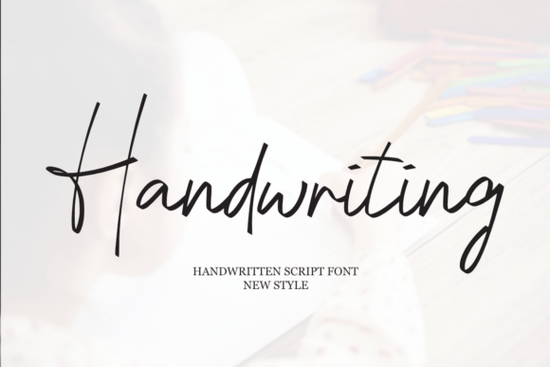
If you are looking for a typeface that feels personal and warm, the Handwriting Font is a strong candidate. This script typeface mimics natural pen strokes, making it ideal for projects that need a human touch. Whether you are designing wedding invitations, creating logos for small businesses, or making print-on-demand products, this font adds a joyful and romantic feel without looking too formal. It strikes a balance between fancy elegance and casual readability, which is often hard to find in standard script libraries.
What makes this script style stand out?
The core appeal of this typeface lies in its gentle curves and consistent flow. Unlike rigid serif or sans-serif options, cursive fonts connect letters in a way that guides the eye smoothly across the page. This specific design avoids excessive flourishes that can reduce legibility, ensuring your message remains clear even at smaller sizes. It works well for branding where you want to convey approachability. For example, a boutique owner might use it on packaging to suggest care and attention to detail. The romantic touch mentioned in the description comes from the soft terminals and varying stroke widths, which resemble actual ink on paper.
Designers often worry that script fonts are too difficult to read. However, this option maintains enough structure to be functional for headings and short paragraphs. It is not intended for long body text, but for display purposes, it performs reliably. When you pair it with a clean sans-serif for secondary information, the contrast helps important details pop. This versatility allows you to use it across different mediums, from digital social media graphics to physical merchandise like tote bags or mugs.
Where does this font work best?
Knowing where to apply this typeface saves time during the design process. It is particularly effective for wedding things, such as save-the-dates, menu cards, and signage. The romantic vibe aligns perfectly with floral themes and soft color palettes. Beyond events, it fits well in fashion and lookbook designs where elegance is key. Marketing promotions also benefit from this style because it catches attention without feeling aggressive. If you run a small business selling handmade goods, using this font on your labels can reinforce the artisanal quality of your products.
Print-on-demand sellers will find this useful for niche markets. Quotes about love, family, or inspiration look authentic when rendered in a handwritten style. You can place these designs on t-shirts, posters, or greeting cards. The casual nature of the font means it does not feel out of place on everyday items. It adds a layer of personality that standard system fonts cannot match. For crafters making physical items with cutting machines, the paths are usually clean enough to cut without excessive weeding, though you should always check the specific file details before purchasing.
Are there similar styles to consider?
Sometimes you need variations to match a specific theme. If you want something with a more relaxed bohemian feel, you might explore bohemian script alternatives. These often include extra swashes or a looser structure. For projects focused on rustic home decor, such as signs for a farmhouse kitchen, looking into rustic home decor projects could yield better thematic results. These fonts often have a weathered or textured appearance that complements wood and neutral tones.
If your design requires more energy, you might prefer bold swing style letters. These typesfaces usually have higher contrast and more dynamic movement, suitable for sports or high-energy branding. On the other hand, if you are designing for a bakery or a sweet shop, checking out dessert shop branding options might provide a rounder, softer look. Finally, if you want to browse a wider selection to compare stroke weights and spacing, you can view a collection of handwritten typefaces. Having multiple options allows you to test how different scripts interact with your specific logo or layout.
How do you pair it with other text?
Mixing fonts is essential for professional-looking designs. Since this script is detailed, pair it with a simple sans-serif font for body text. This creates a hierarchy where the script draws attention to the headline, and the sans-serif provides easy reading for details like dates, addresses, or ingredients. Avoid pairing it with another script or a highly decorative serif, as this can create visual clutter. Keep the color contrast high; dark text on a light background usually works best for readability.
When using this for logos, ensure there is enough padding around the text. Crowding a cursive font can make the letters blend together, reducing clarity. Test your design at different sizes. What looks good on a desktop screen might become illegible on a mobile device or a small business card. Always print a test copy if you are creating physical products. This helps you see how the ink sits on the material and whether the thin strokes hold up during production.